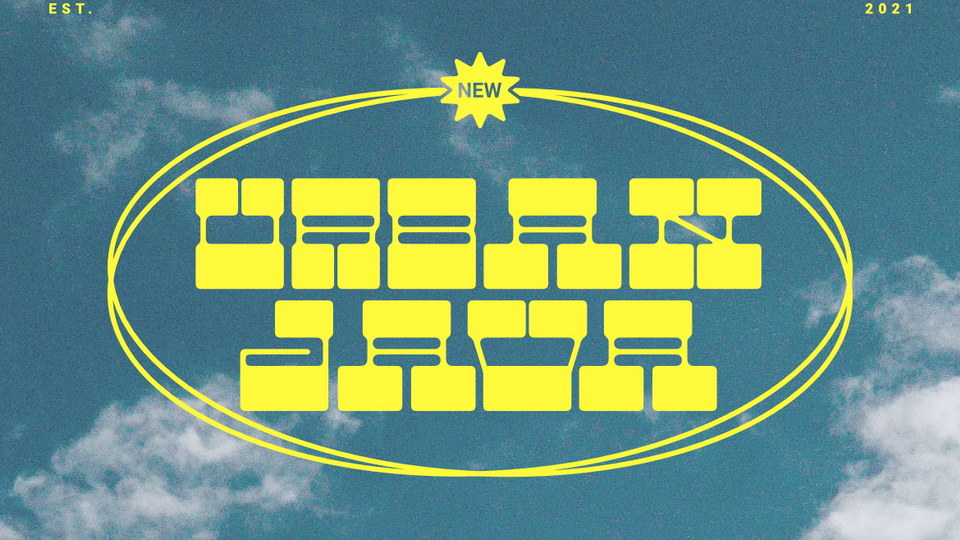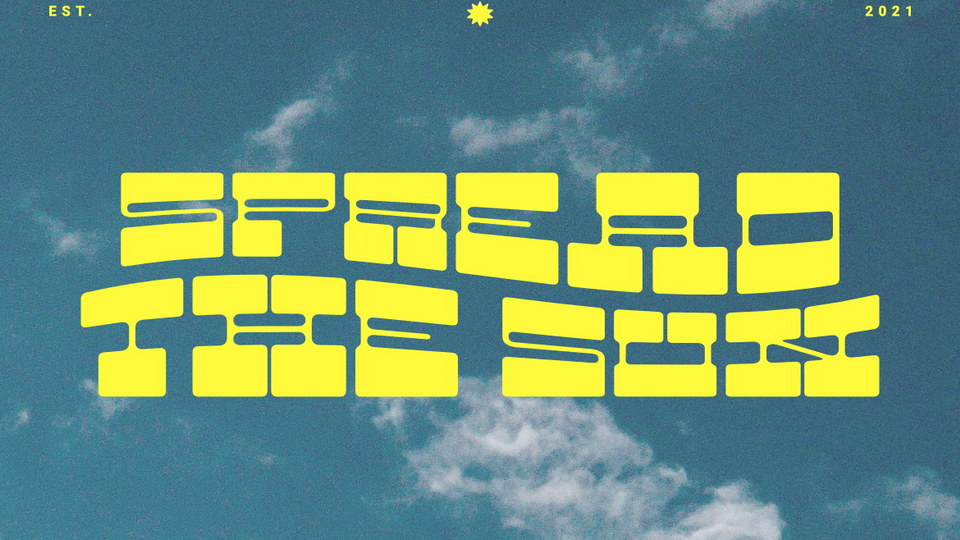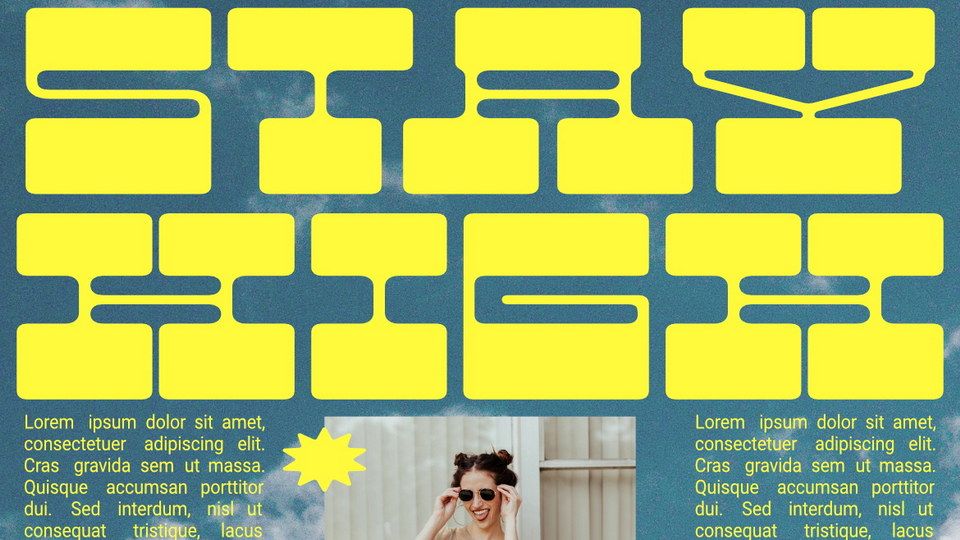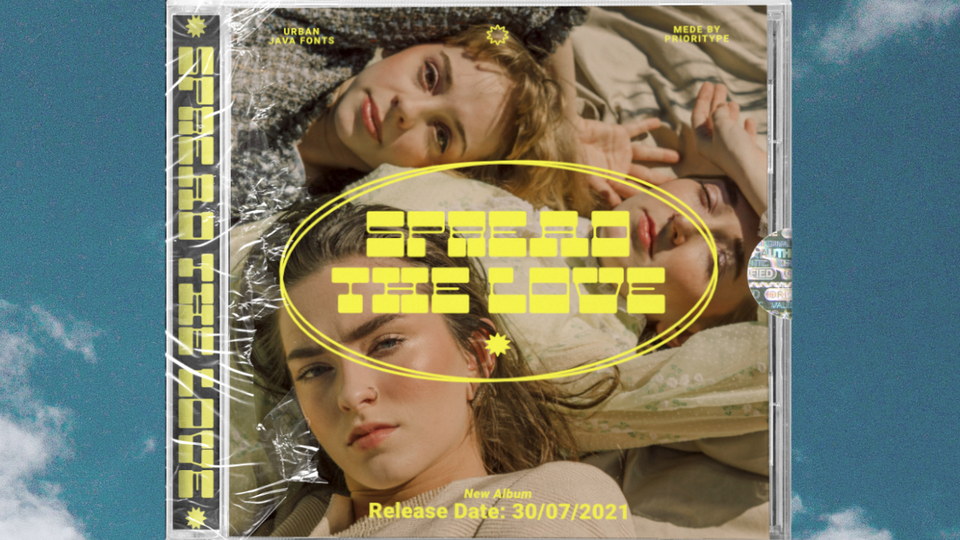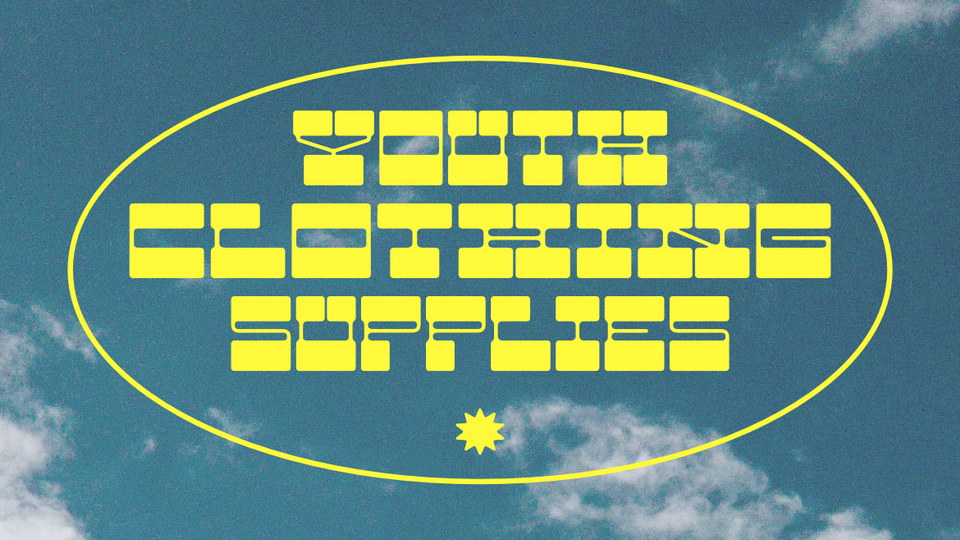
Urban Java is a rounded display slab serif font. This typeface was formed to refresh a contemporary youth street design. Firm and soft impression can be spelled out.
Urban Java really looks good to be consumed by today’s youth. Good for use in street designs such as t-shirts, posters, sticker, album or magazine covers and more.